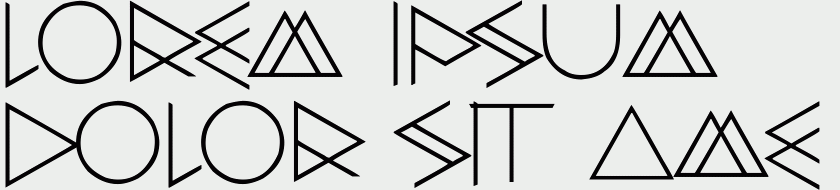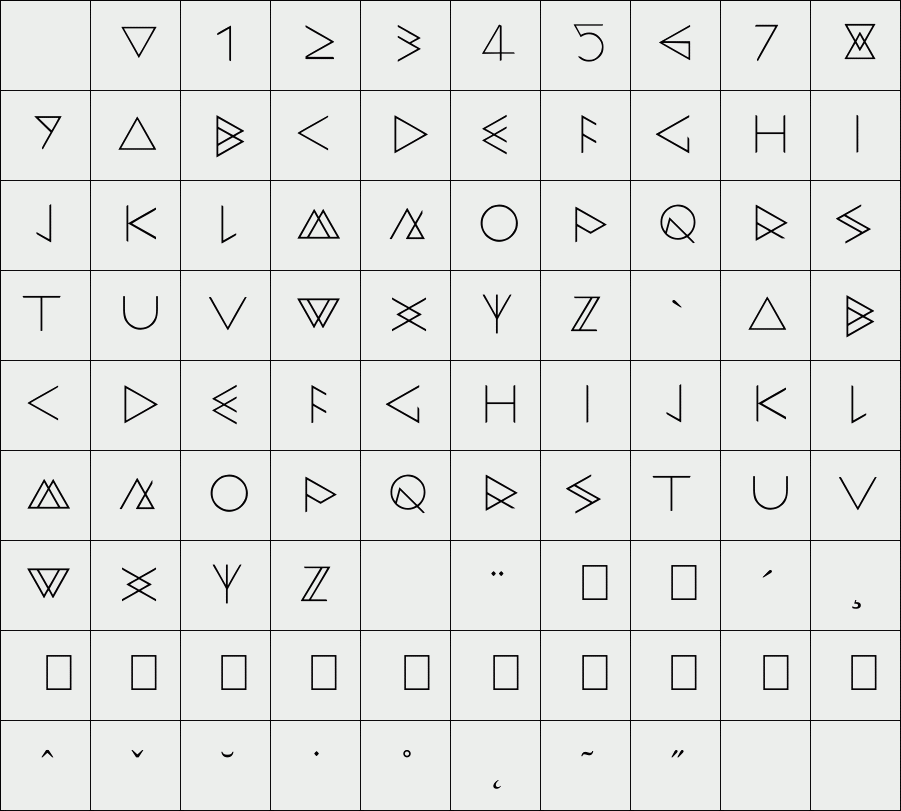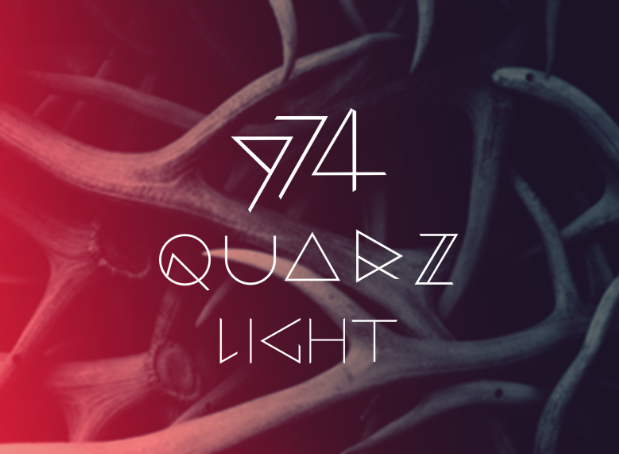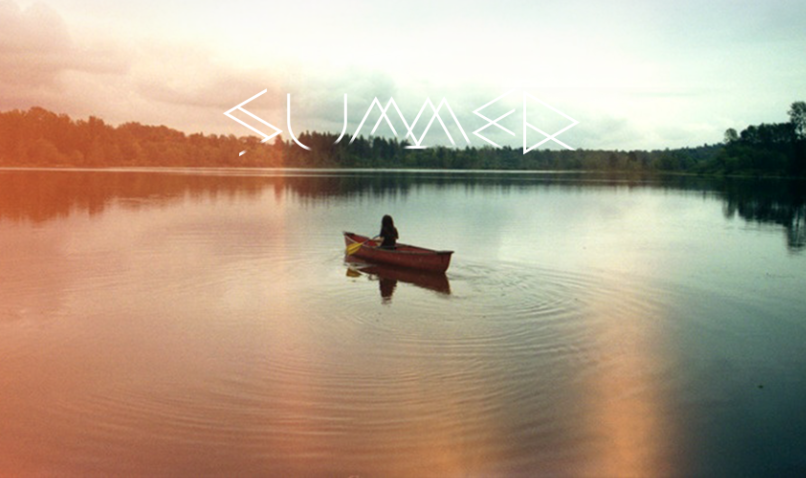
Quarz 974 Light
Quartz 974 is a typology of font inspired by simple and geometric lines as triangle. It is very suitable for titles, logos, posters, that’s why it is composed by only capital letters and numbers.